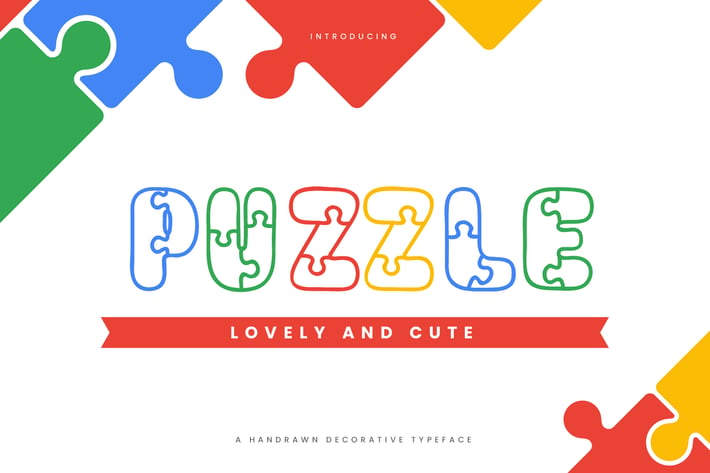
Puzzle - Fun Children Typeface
Are you looking for a bold and fun puzzle font for children? We can help! Try to download our Puzzle font. The font is suitable to use for casual purpose especially children related occasion :)